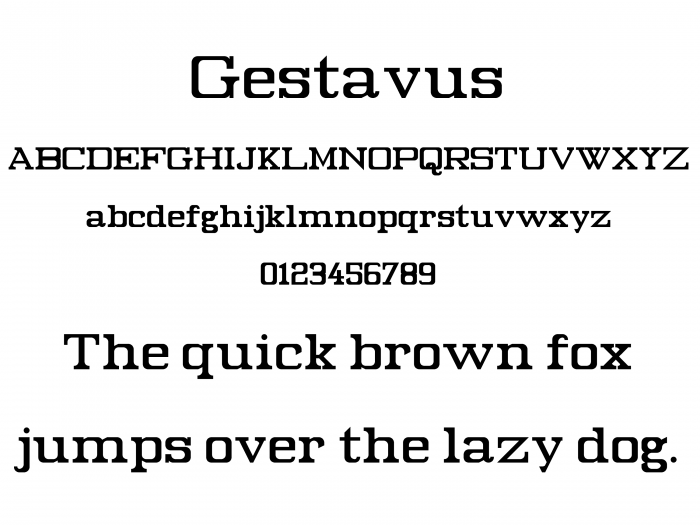
• An attempt at making a rectilinear Clarendon-style slab serif font (with medium contrast)
Update 7/26/2019: Greek characters added!
Update 7/30/2019: Cyrillic characters added (10/6/2020 now complete!)
Here is a sample: